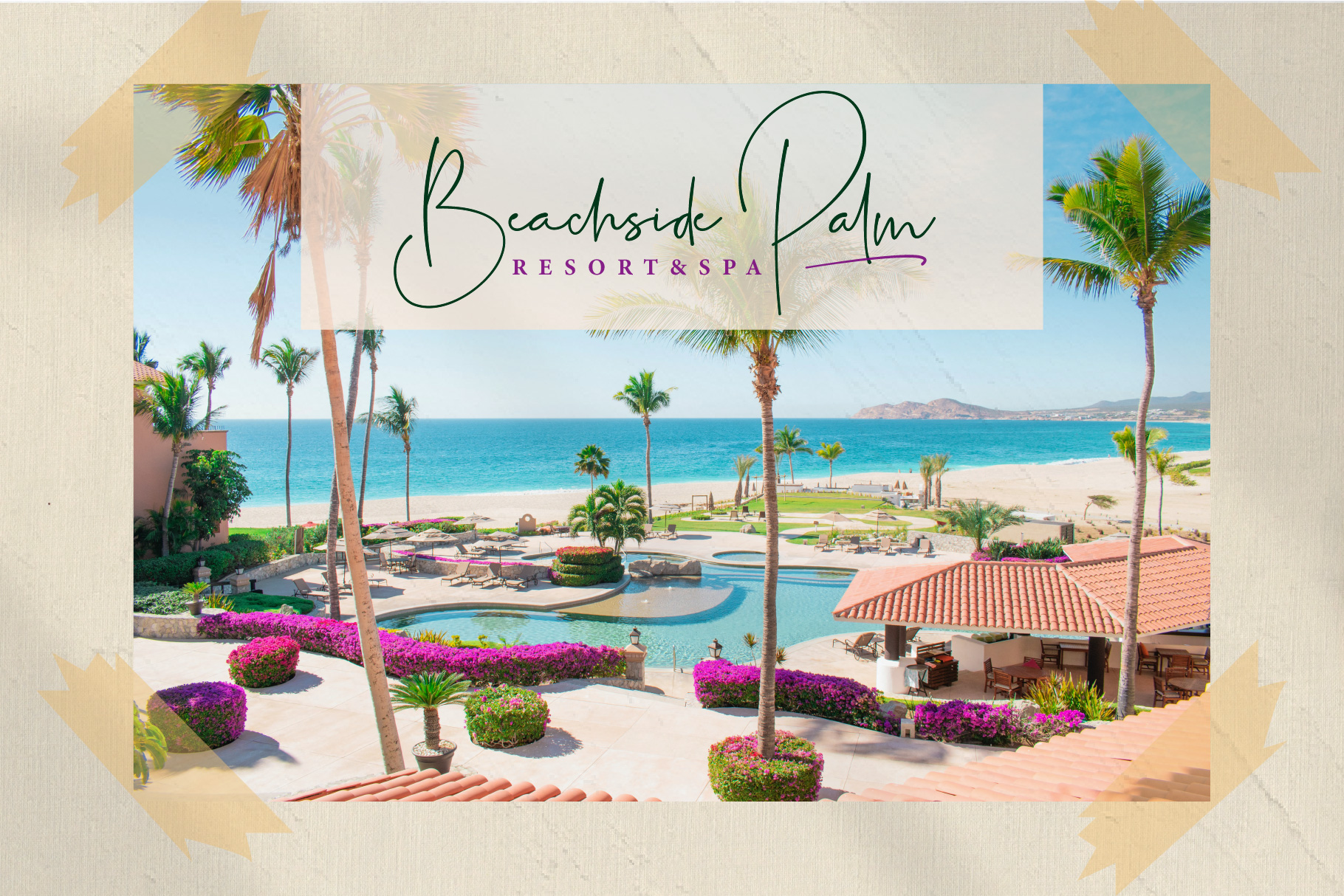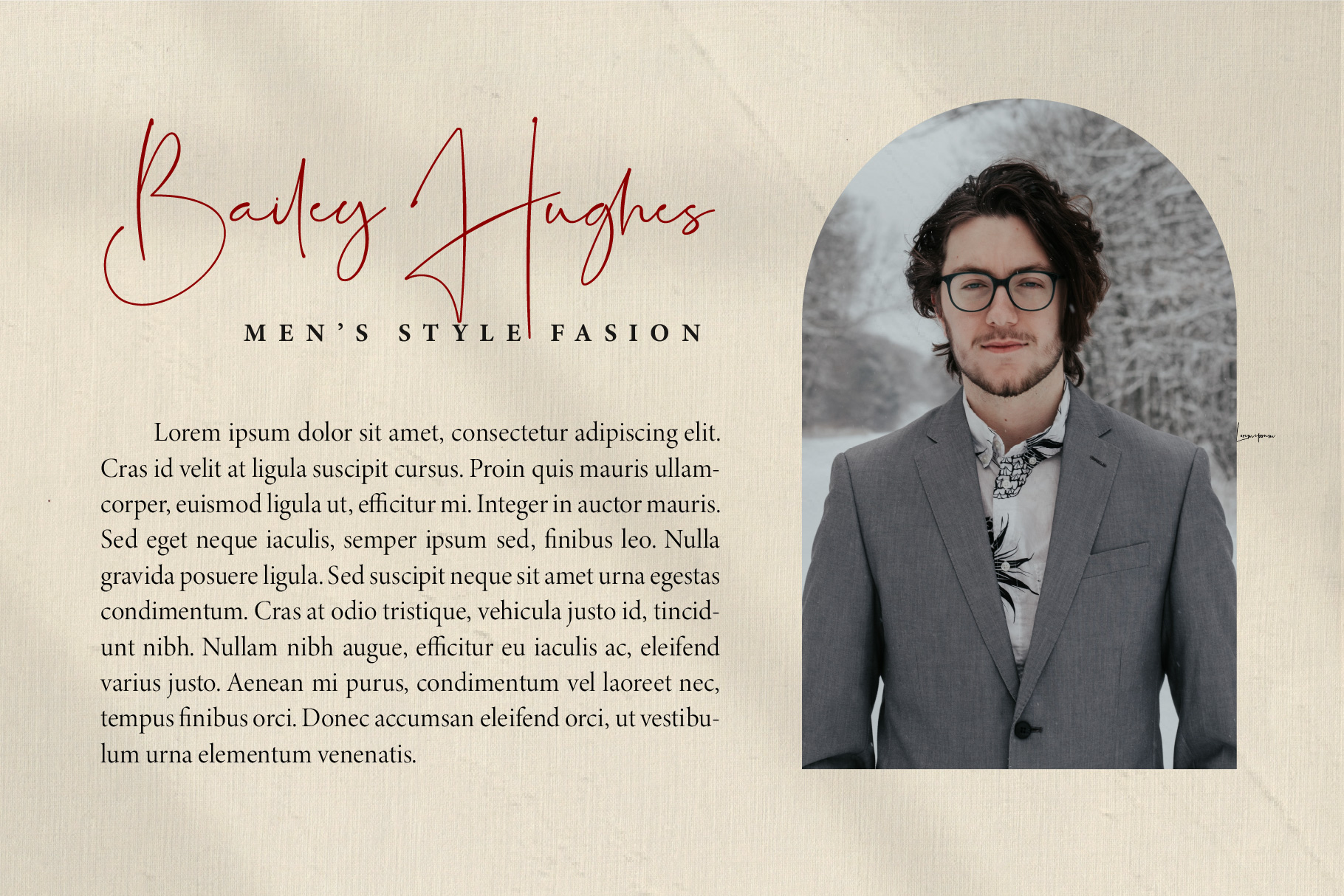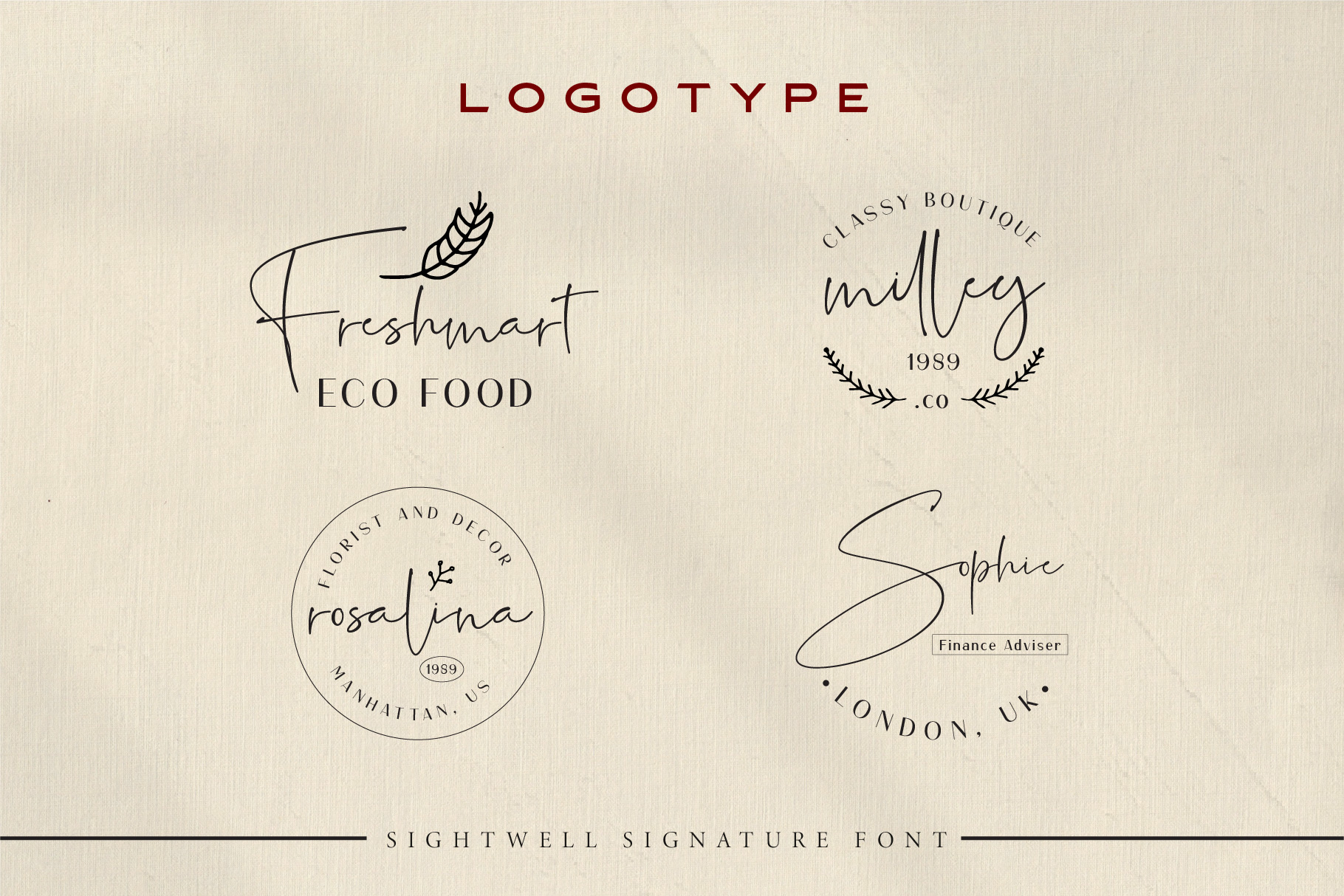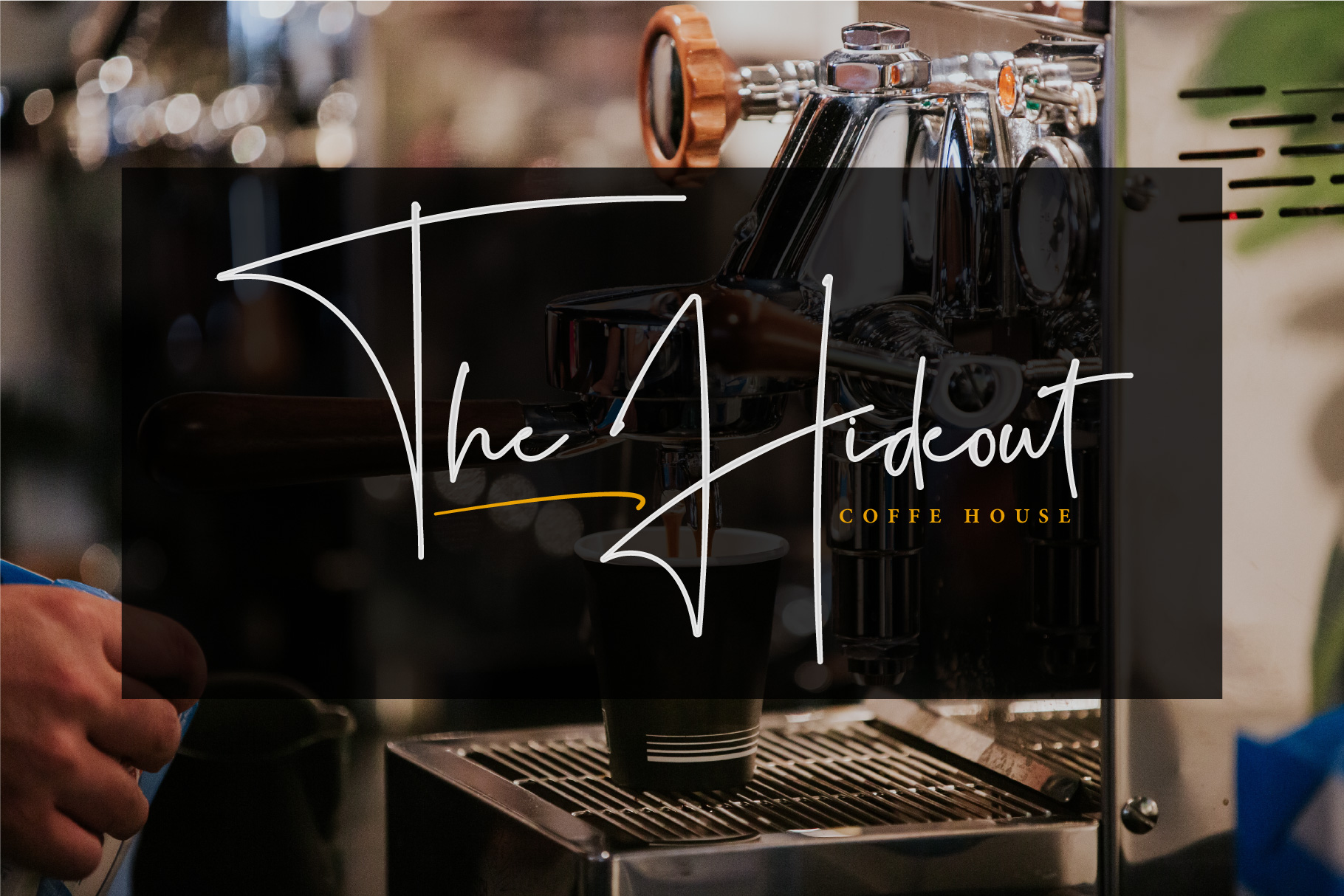
Sightwell Signature Font
Sightwell Signature Script Font
This is a relaxed and stylish handwritten font. Whether you’re using it for crafts, digital design, presentations, or making greeting cards, this font has the potential to become your favorite go-to font, no matter the occasion!